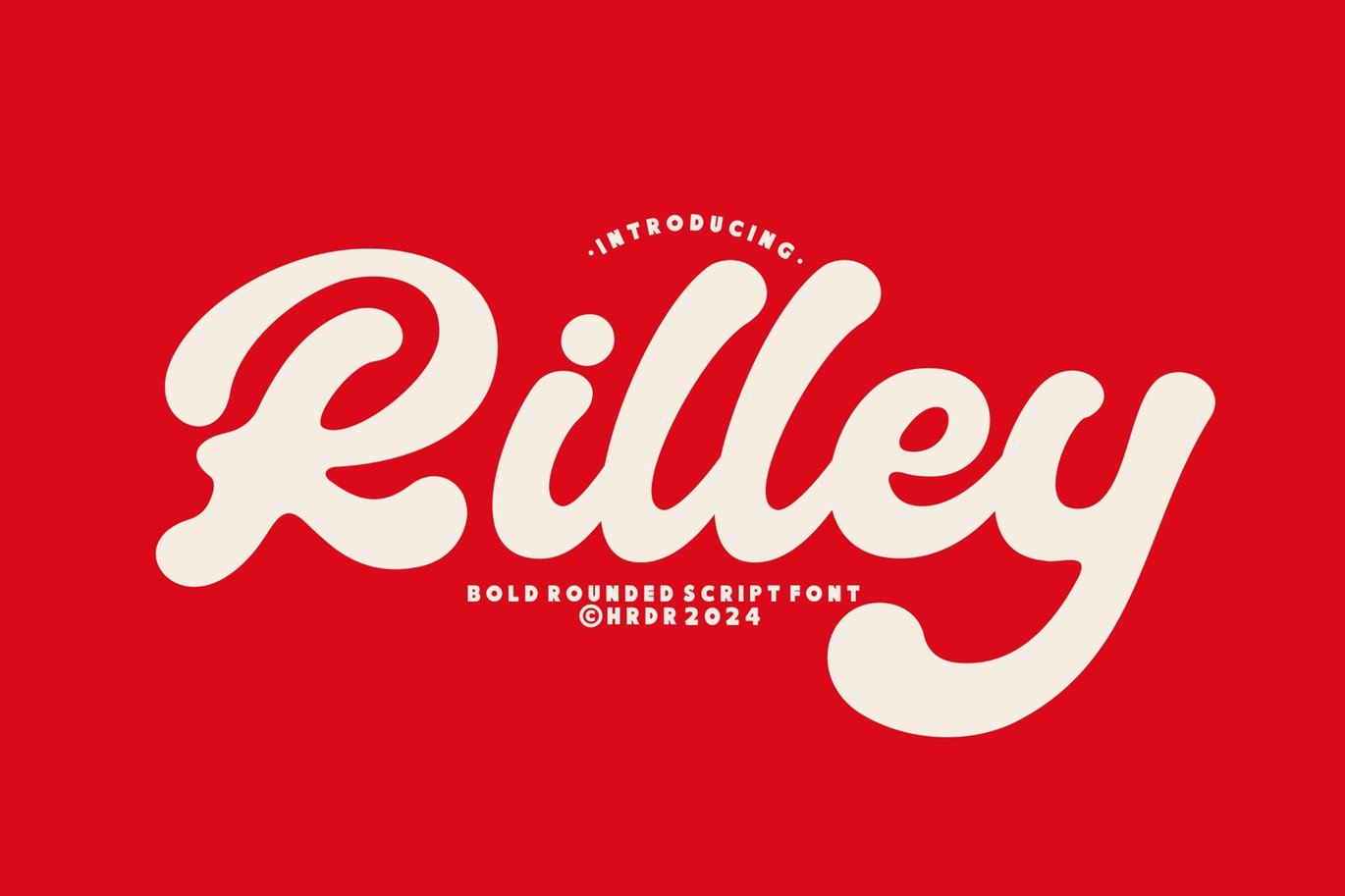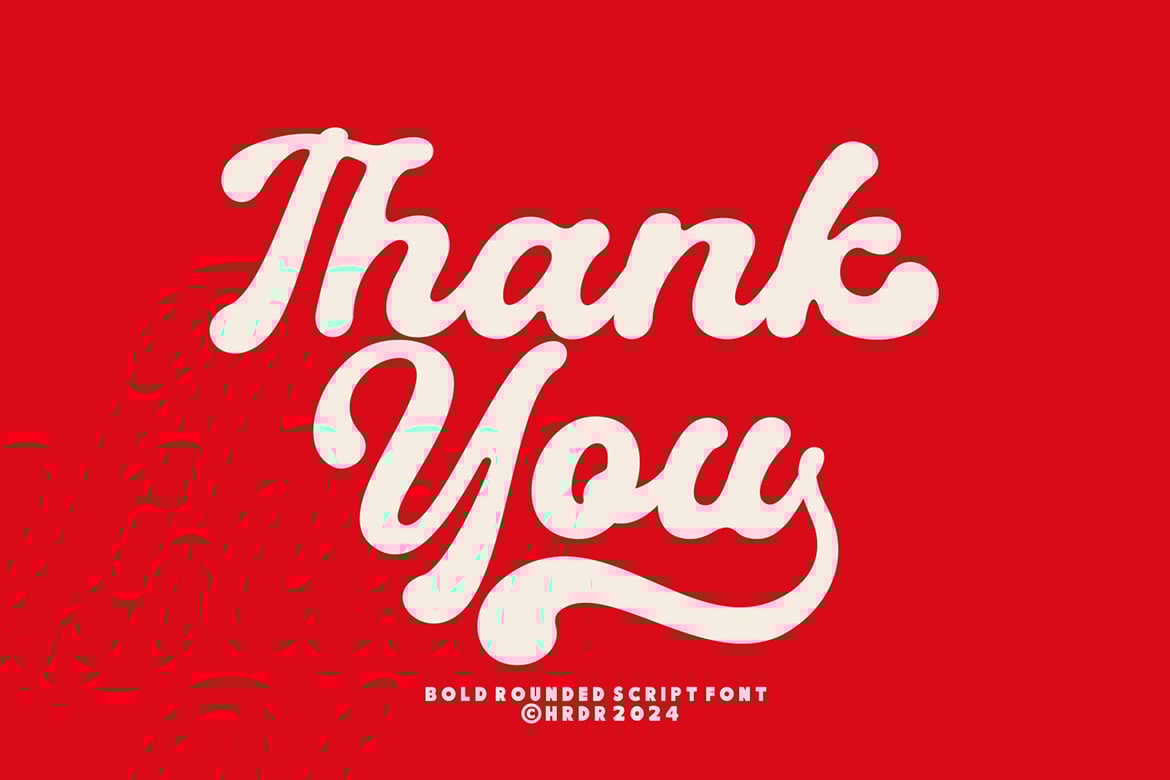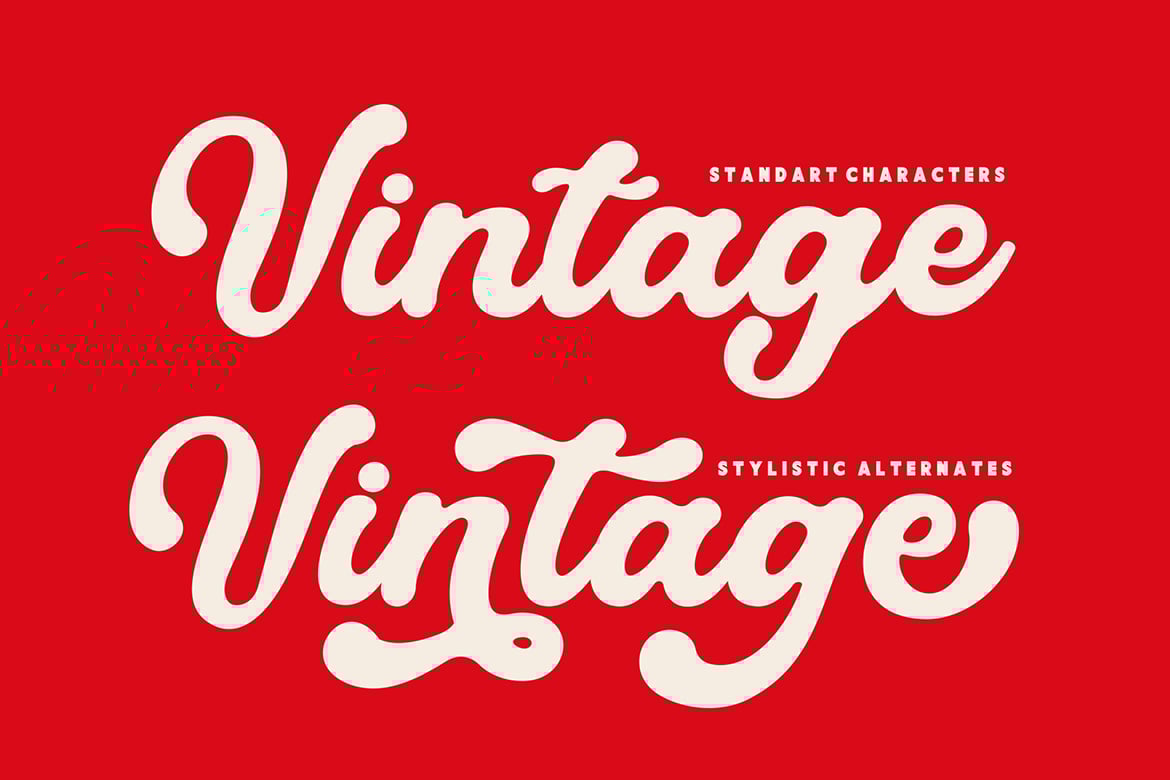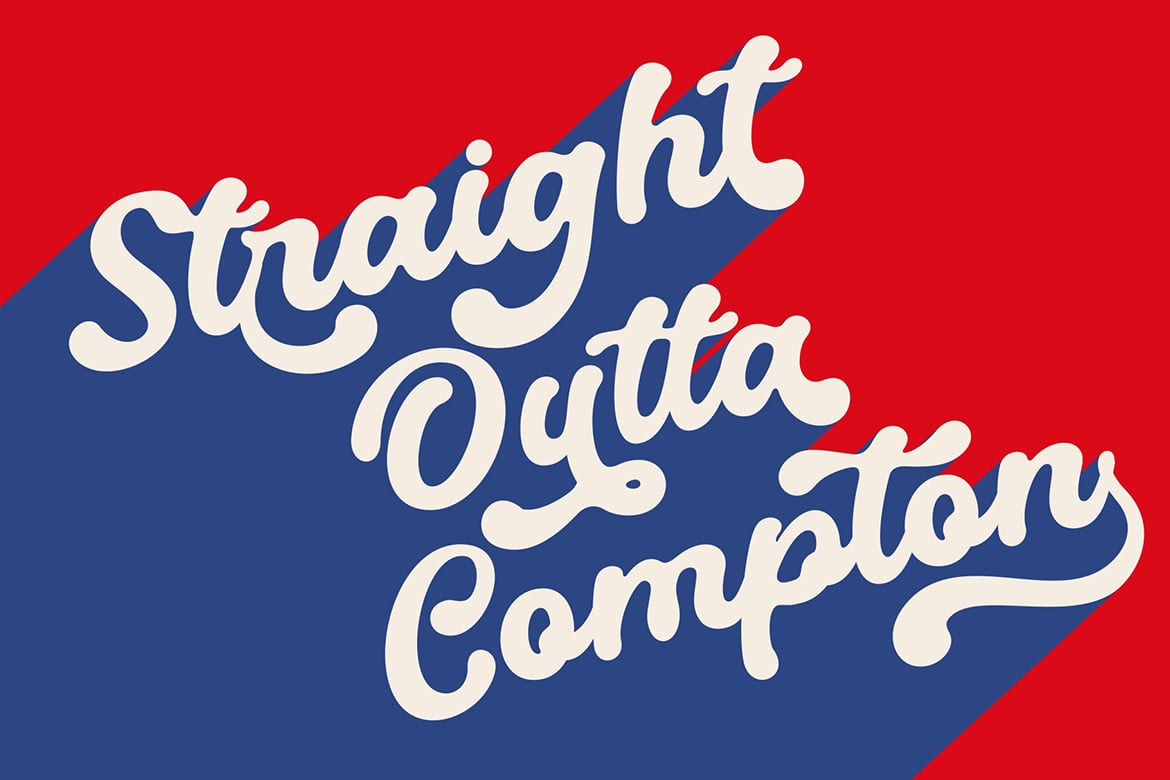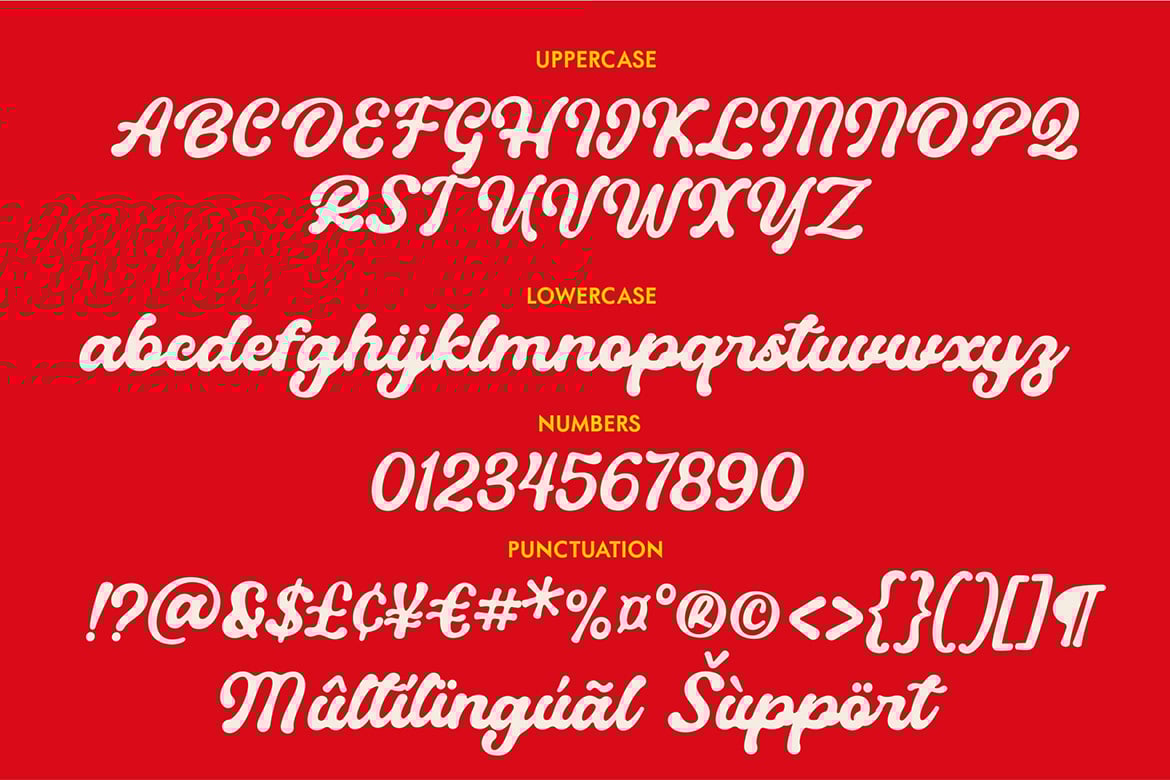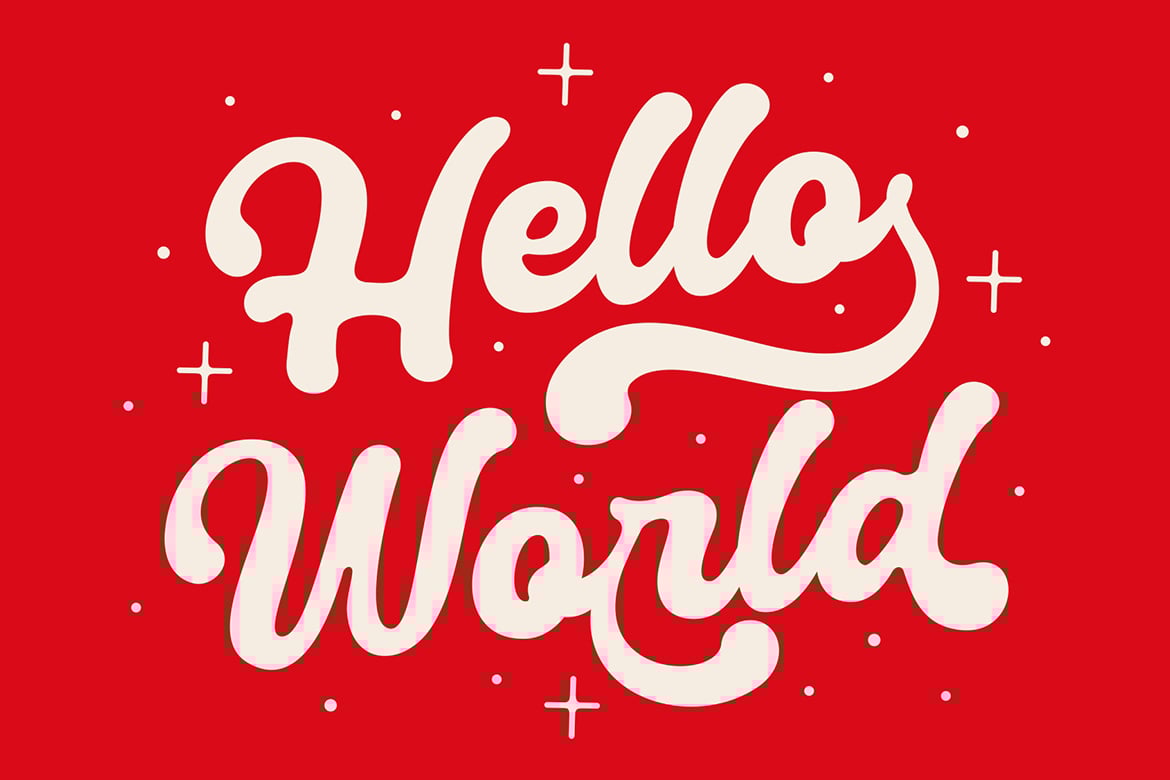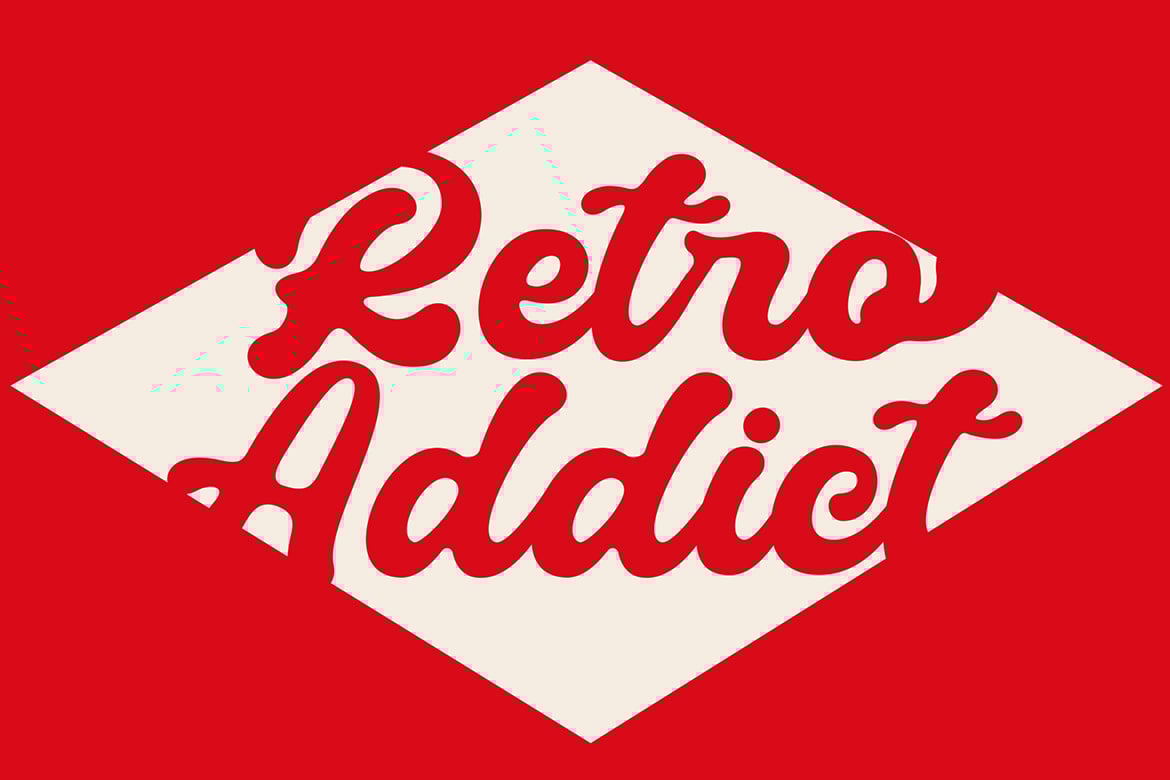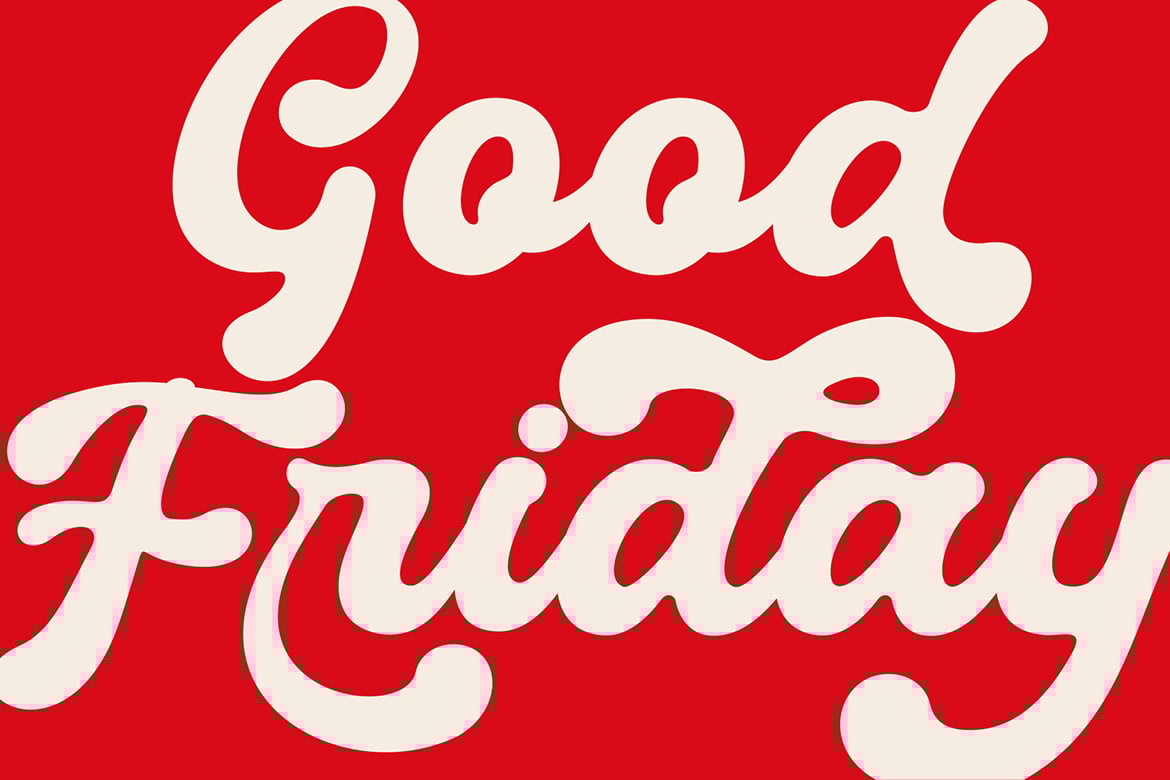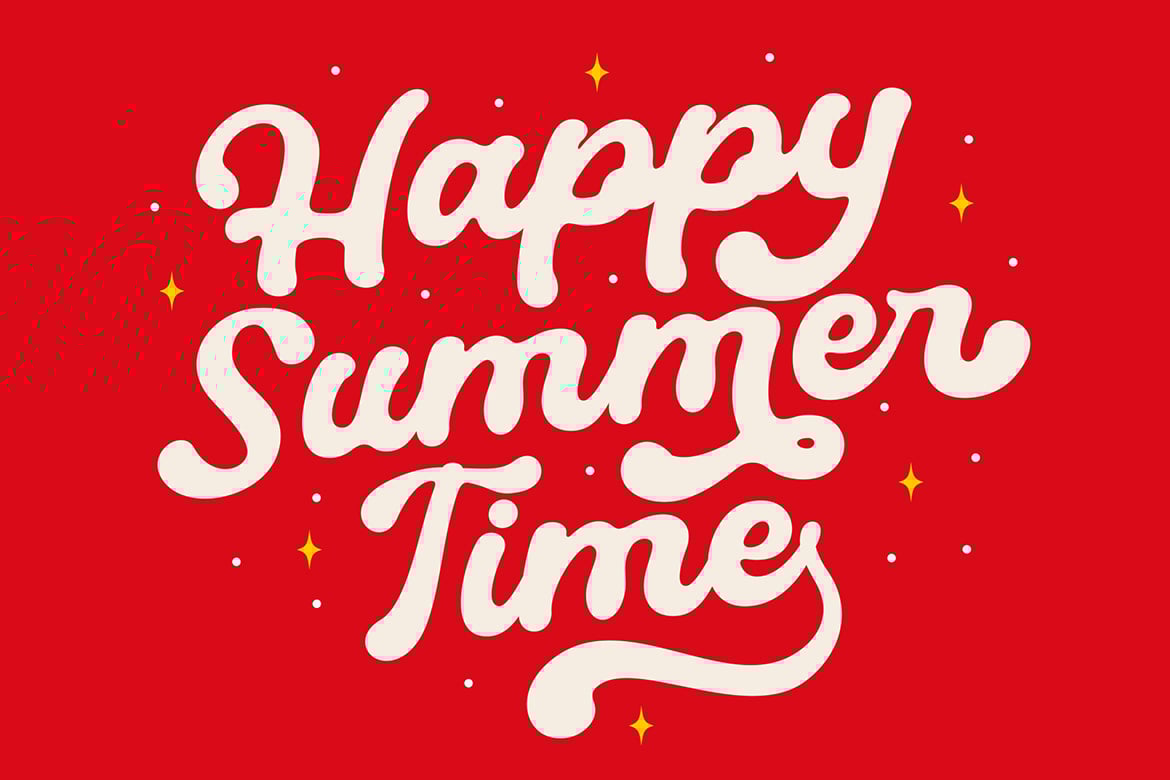
Rilley – Rounded Bold Font
Meets Rilley, A new rounded Bold on a script typefaces It generates a lot more fun, more trendy and Beauty.
perfect for crafting, branding, Logo, invitation, stationery, wedding designs, social media posts, advertisements, product
packaging, product designs, label, Posters, photography, special events, or anything.
Font Features :
- numeric & Multilingual support
- Stylistic Alternates with Ss01, Ss02, Ss03 and swash